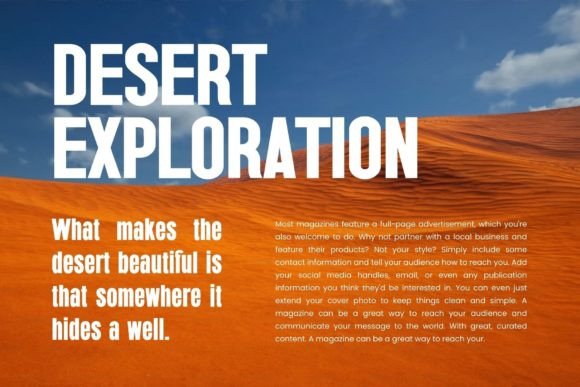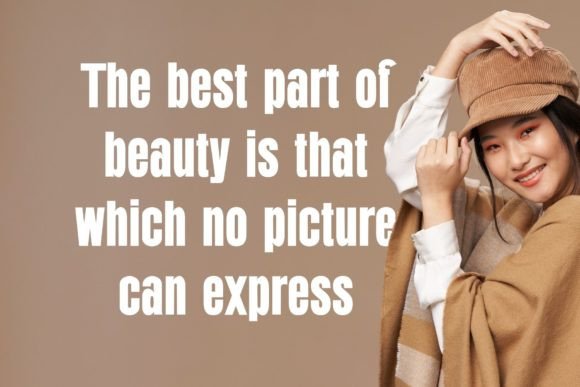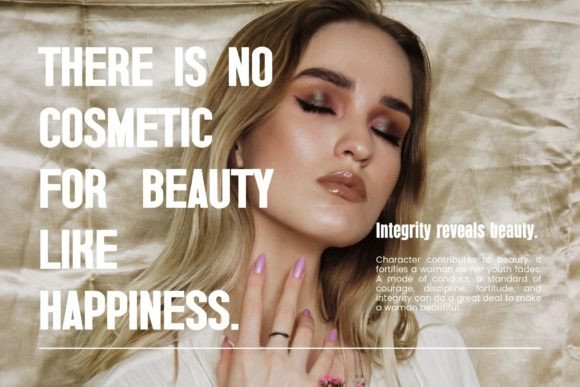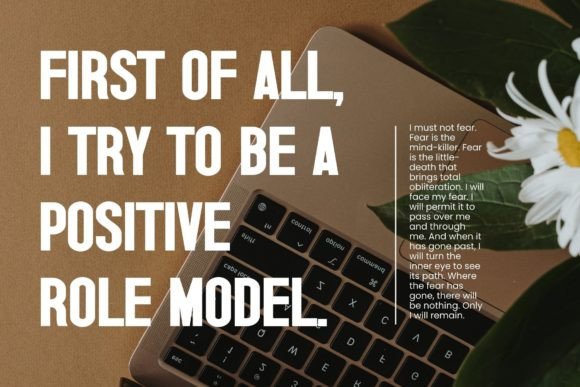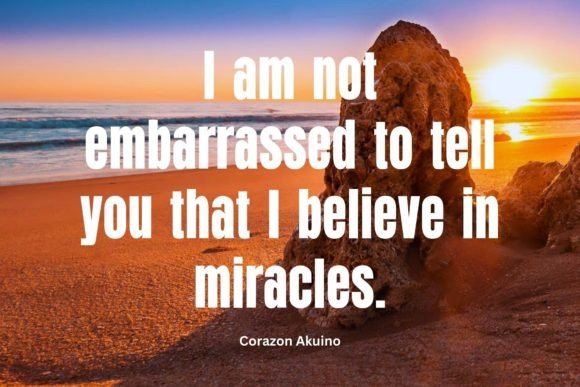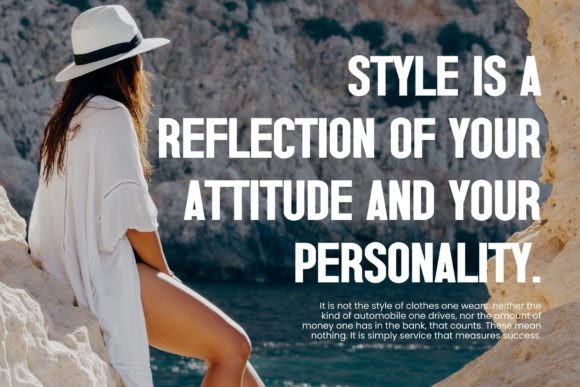
Introduction to Kefyla Font
Have you ever stared at a blank canvas, trying to find the perfect font to bring your creative project to life? The search can be overwhelming, especially when you’re looking for a high-quality design resource that exudes modern elegance. But what if I told you that there’s a font that can simplify your design process and elevate your visual presence? Enter Kefyla Font, a sleek and contemporary sans serif font that’s designed to deliver a clean and professional look.
Kefyla Font is more than just a font – it’s a valuable asset for designers who crave a polished and sophisticated visual presence. With its balanced and streamlined letterforms, this font provides excellent readability across various mediums, making it perfect for both digital and print applications. Whether you’re working on a creative project or need a reliable design resource, Kefyla Font is an excellent choice that’s sure to impress.
Key Features of Kefyla Font
- High-quality, professional design perfect for creative projects and presentations.
- Transparent background, making it easy to overlay on images or videos.
- Unique, modern aesthetic, ideal for use in logos, headings, and body text in various design contexts.
Honest Review: Kefyla Font
I recently had the opportunity to work with the Kefyla Font, and I must say it’s been a pleasant experience. This free download is a great addition to any designer’s toolkit, offering a high quality and versatile font that can elevate any creative project.
- ✨ The Kefyla Font has a beautiful, modern design that works well for a variety of applications, from headings to body text.
- ✨ The font is highly customizable, with a transparent background that makes it easy to integrate with any design resource.
However, I did encounter a few limitations during my use of the Kefyla Font. ⚠️ One of the main issues I faced was the font’s limited language support, which may be a problem for designers working on projects that require multiple languages.
Overall, I’m impressed with the Kefyla Font and its potential to become a valuable design resource. While it may not be perfect, its high quality and modern design make it a great choice for any creative project.
The Kefyla Font is a versatile design resource that can be used for a variety of creative projects, including logos, brochures, and social media graphics. It’s particularly useful for creating a professional and modern look.